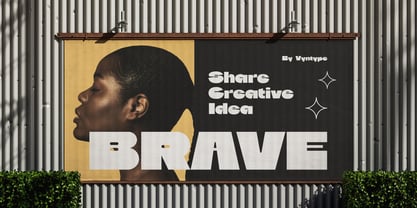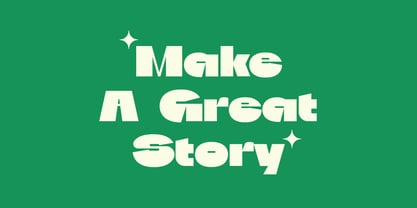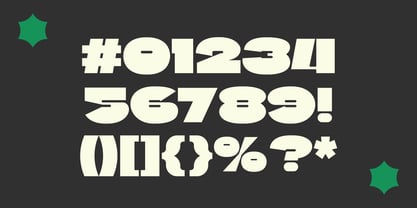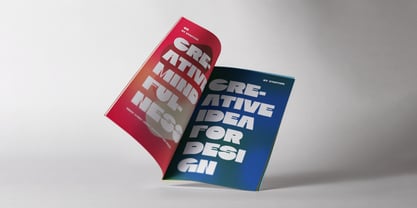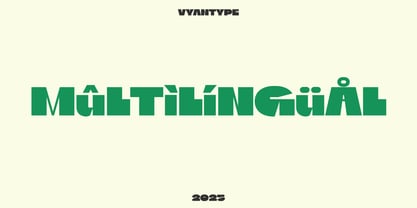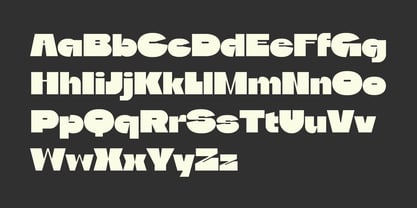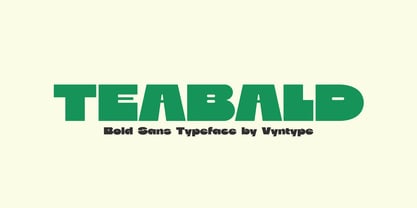
Teabald
Die Schriftfamilie Teabald wurde von Hero Novyanto entworfen und von Vyantype Studio veröffentlicht. Teabald enthält 1 Stile. Mehr über diese Familie
Teabald is a bold sans serif typeface that maintains a light and approachable feel. With its subtle curves and open terminal structure, it adds a warm, human touch to high-impact typography. This premium bold sans serif is crafted for creators who prioritize clarity. By eliminating the unnecessary, Teabald emphasizes balanced proportions and clean, geometric architecture. It delivers a commanding presence both on screen and in print, making it an ideal choice for modern visual identities, branding, and packaging.